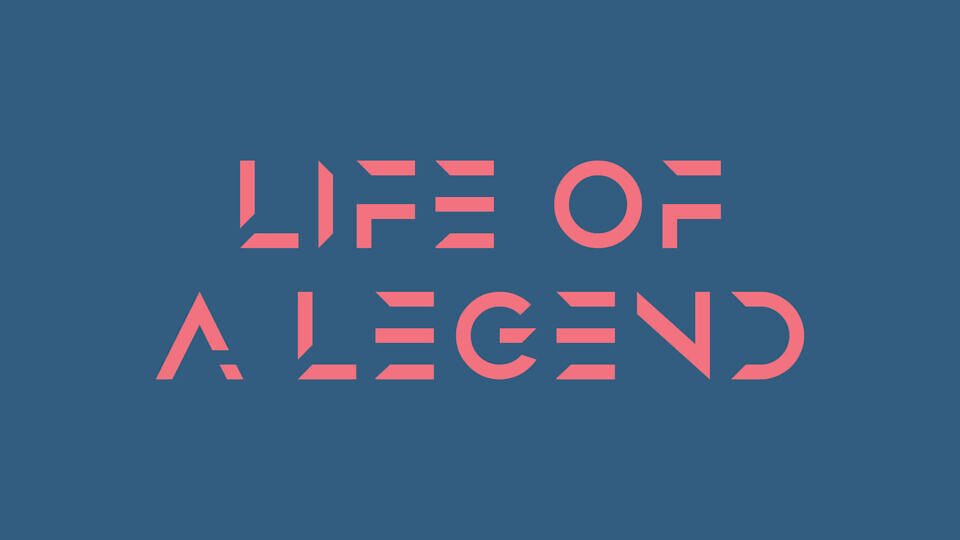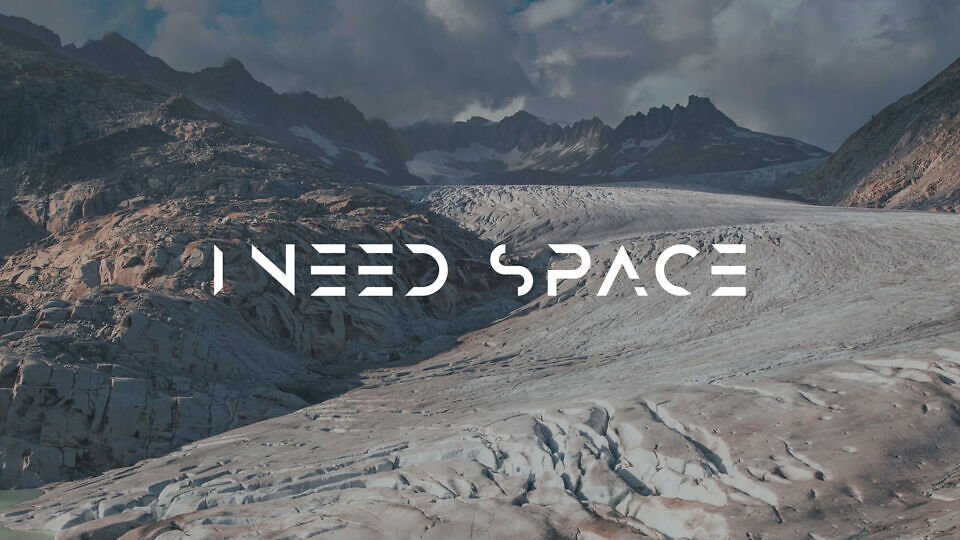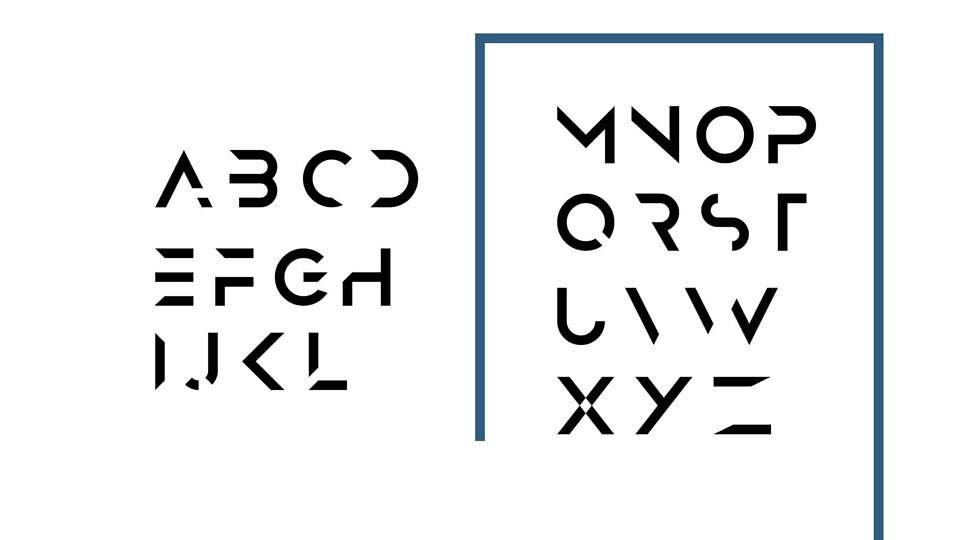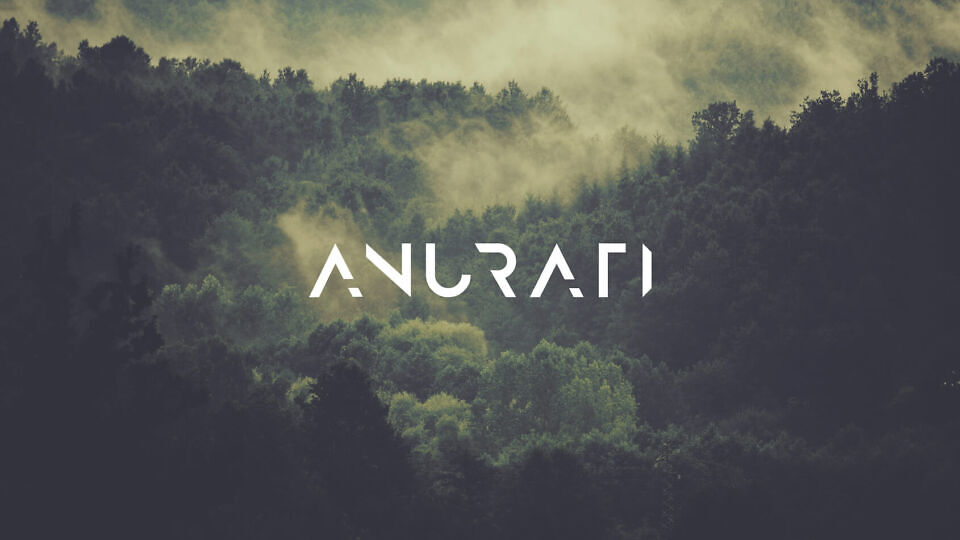
Anurati is a unicase typeface shaped between geometry, sci-fi and luxury. Great for branding, web and editorial projects, the font offers 2 weights for all kinds of texts and designs.
Anurati provides a futuristic design approach and a sharp personality through a display sans-serif font. Built with passion, modern in its core, the font excels at a large size.